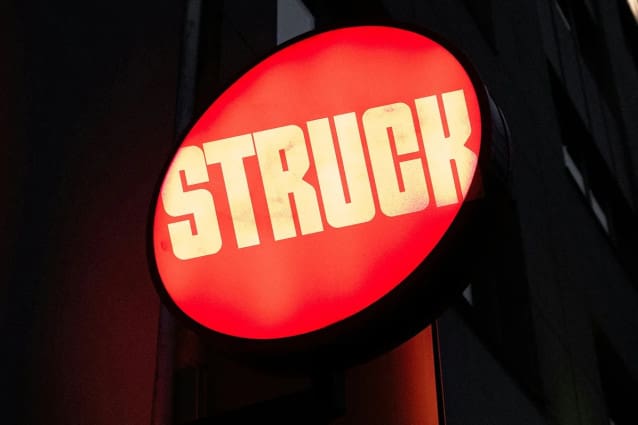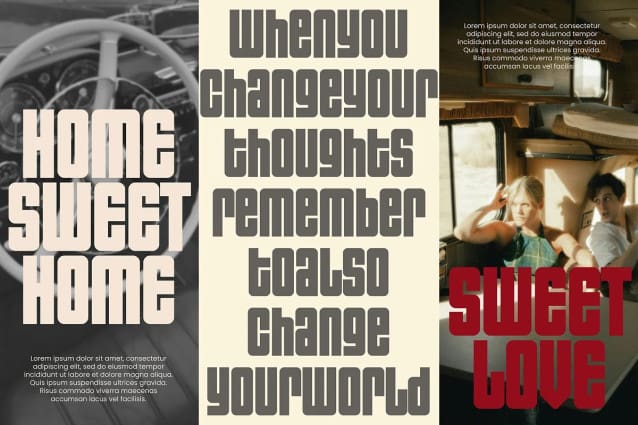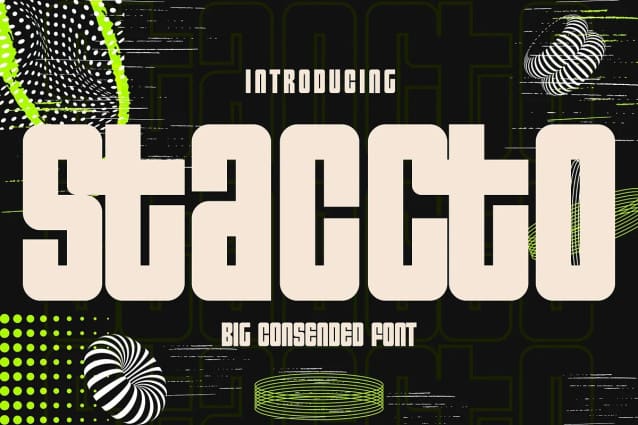
Staccto Font
Staccto Font, a simple and decorative display font. So perfect for you who needs a typeface for logo designs, magazine, social media, brochure, and many more.